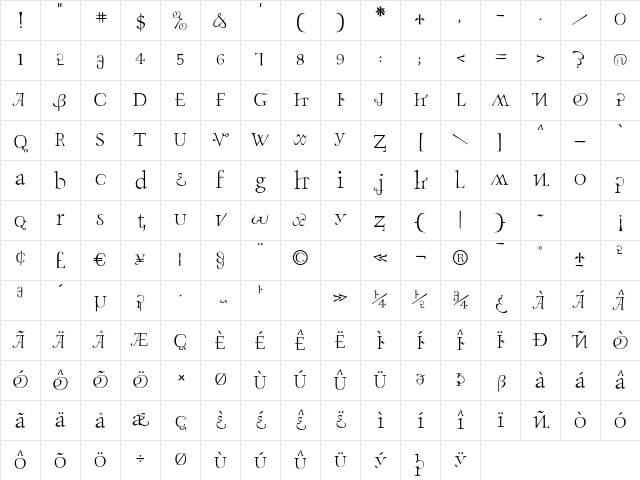
ElliottsSubluxationPerma Regular
Design Context for ElliottsSubluxationPerma
ElliottsSubluxationPerma is a composed and adaptable typeface that performs quietly and consistently across a wide range of design contexts.